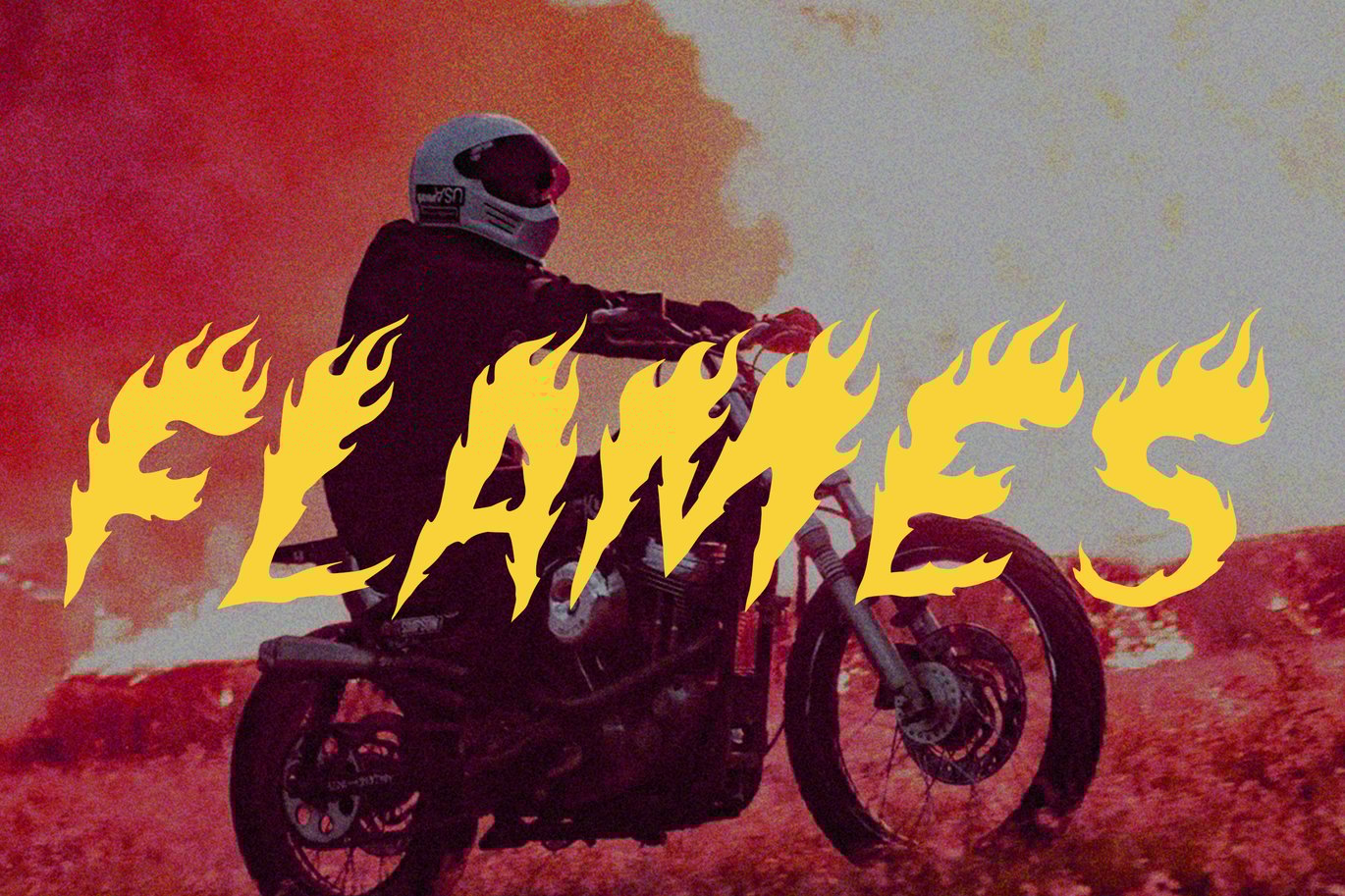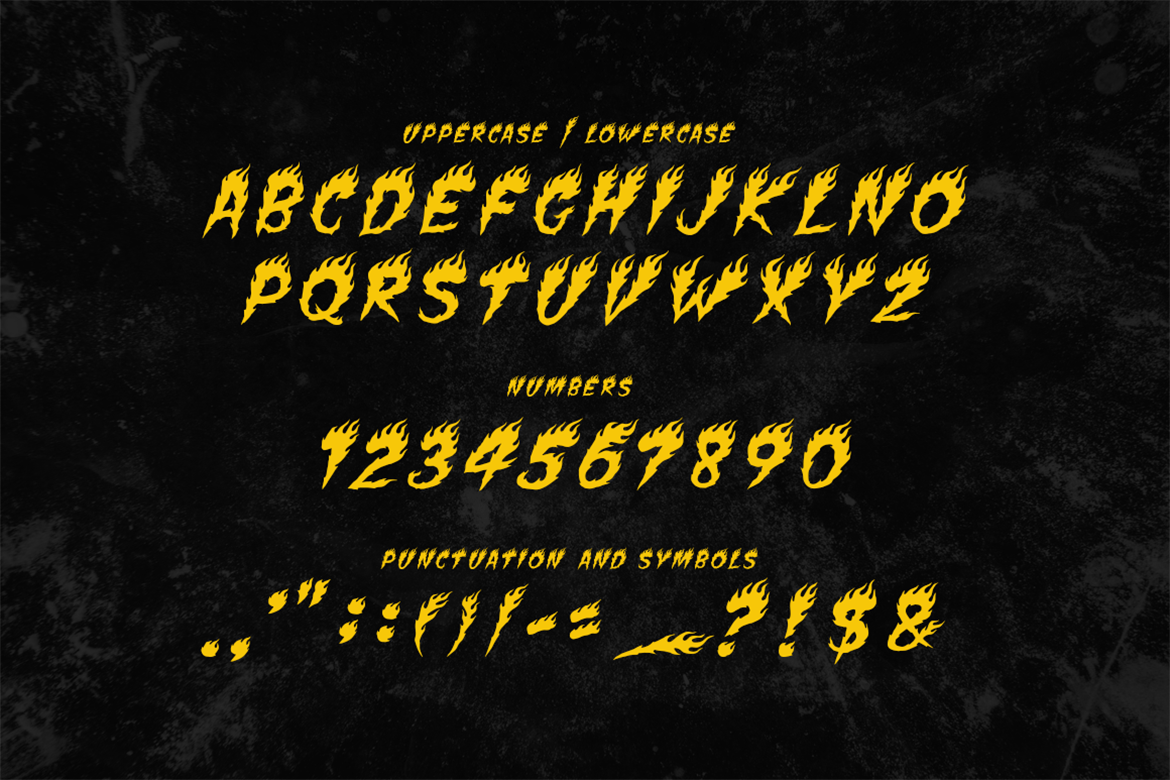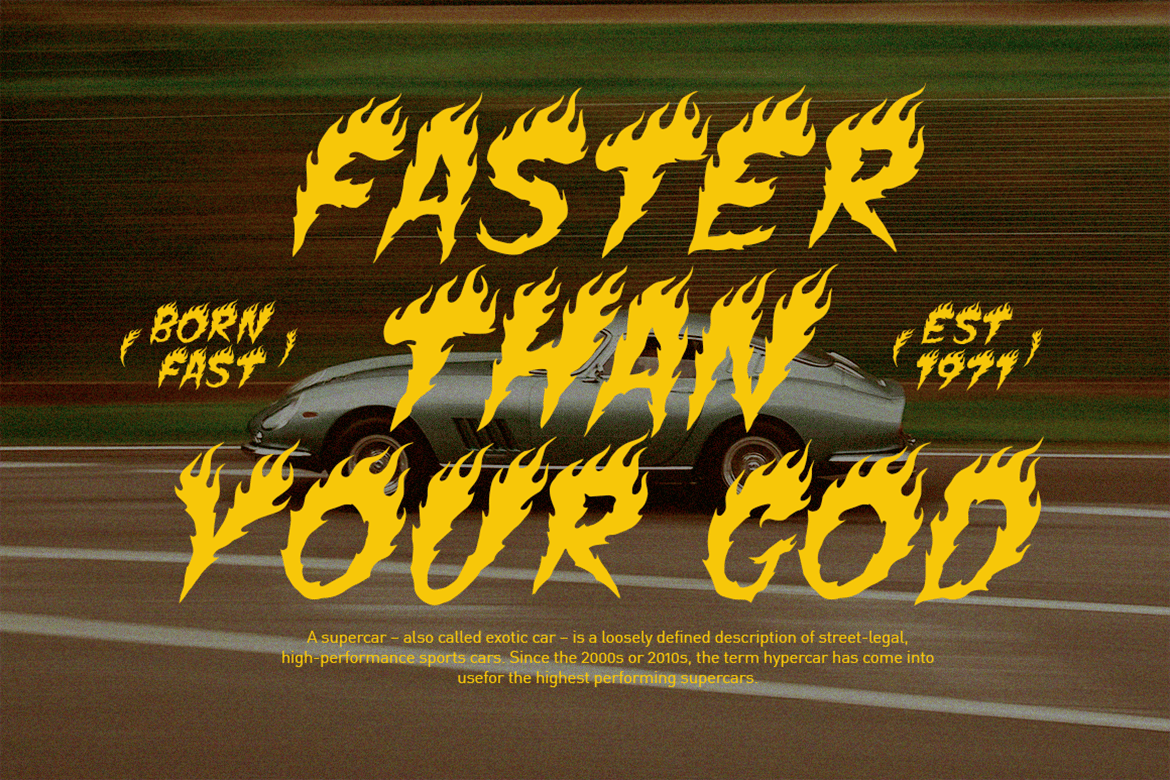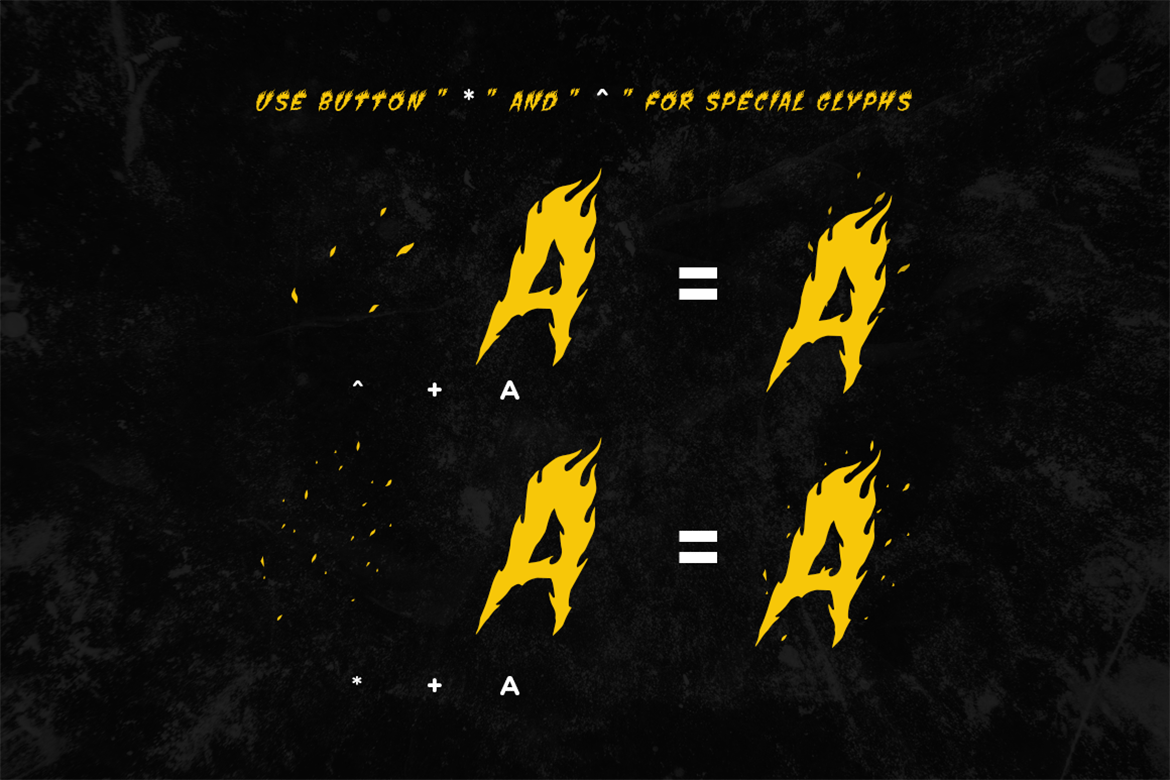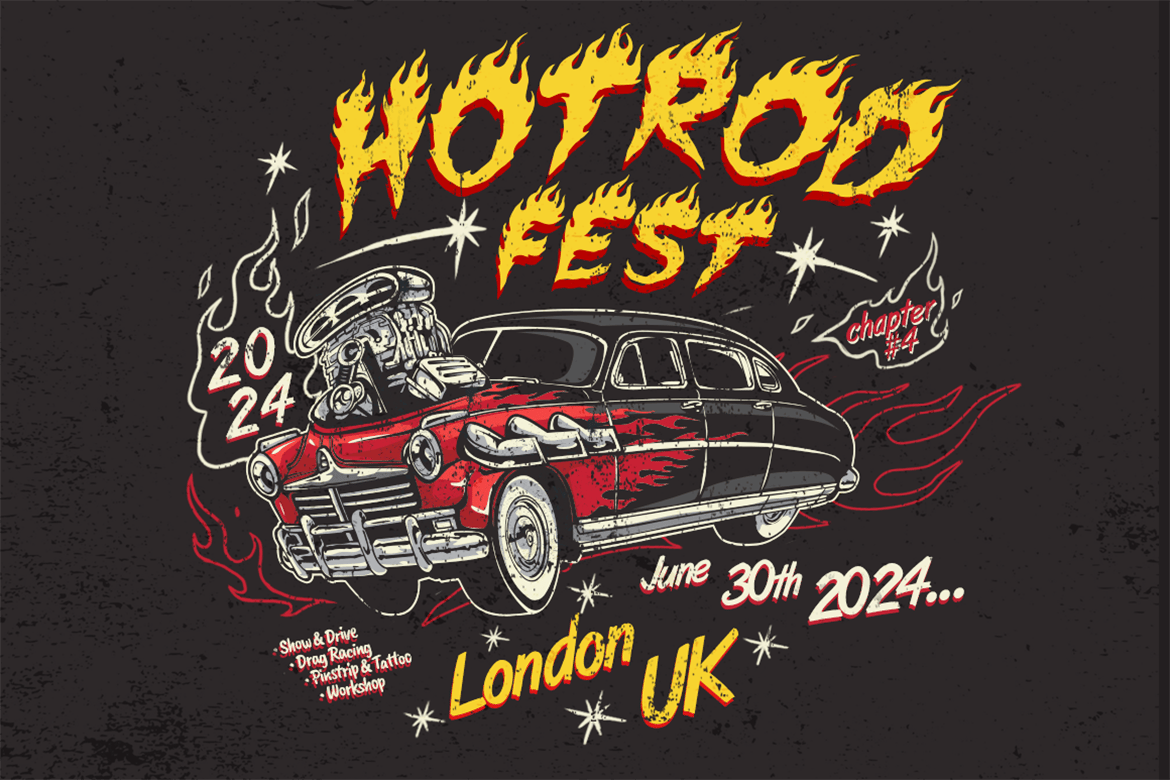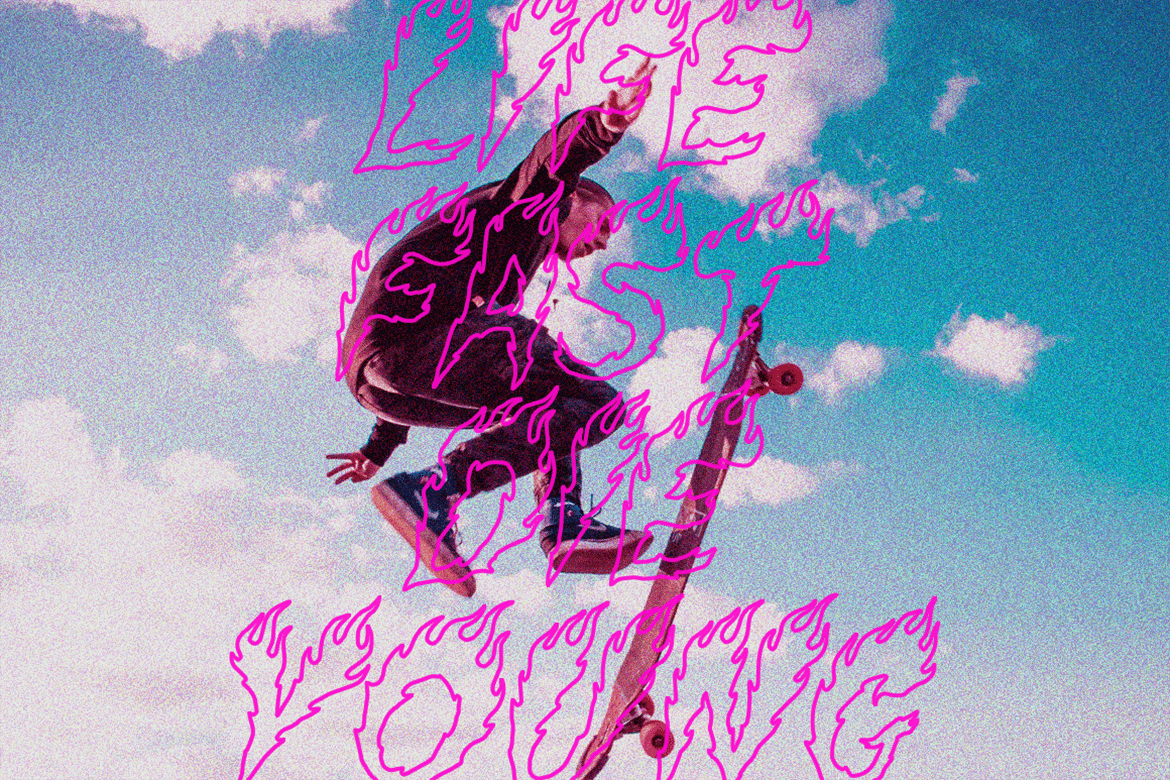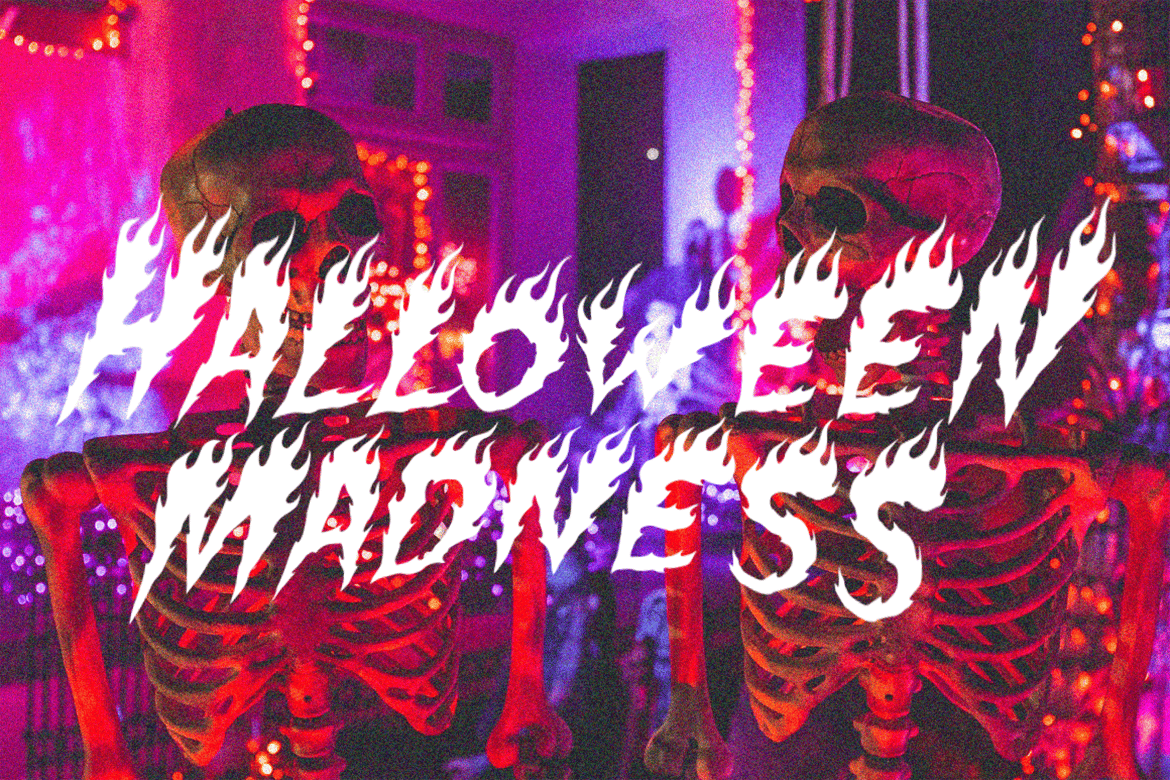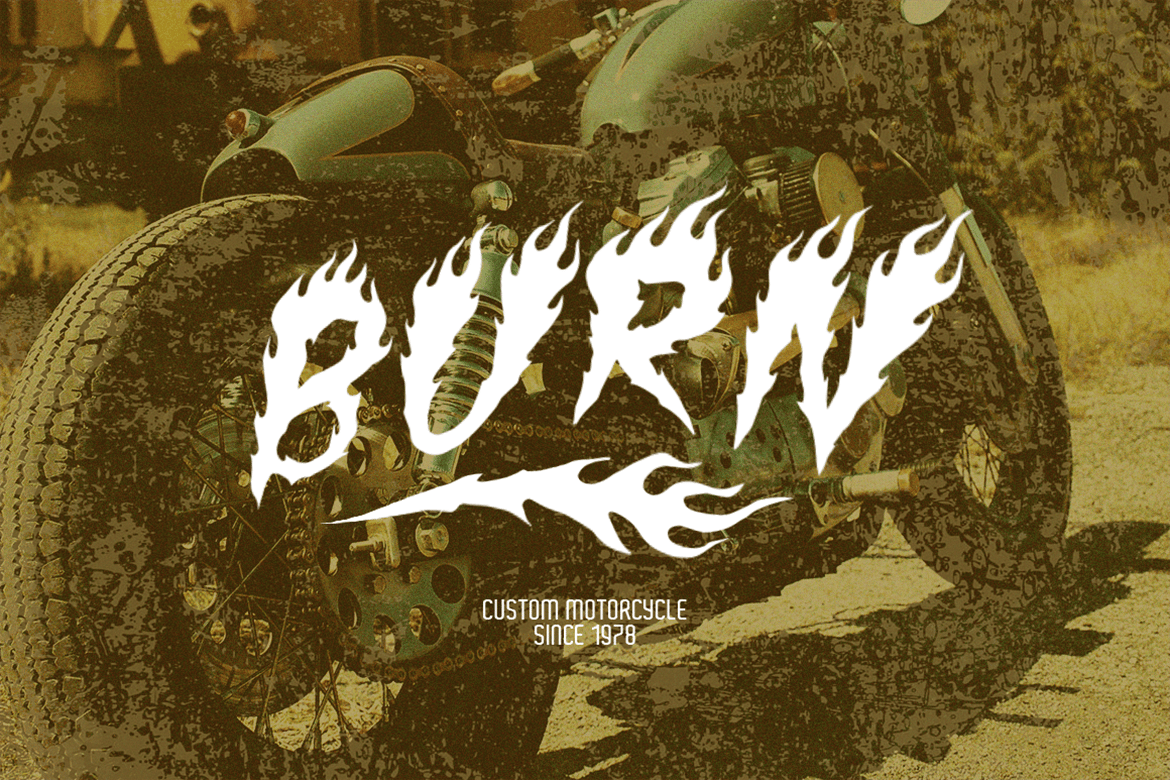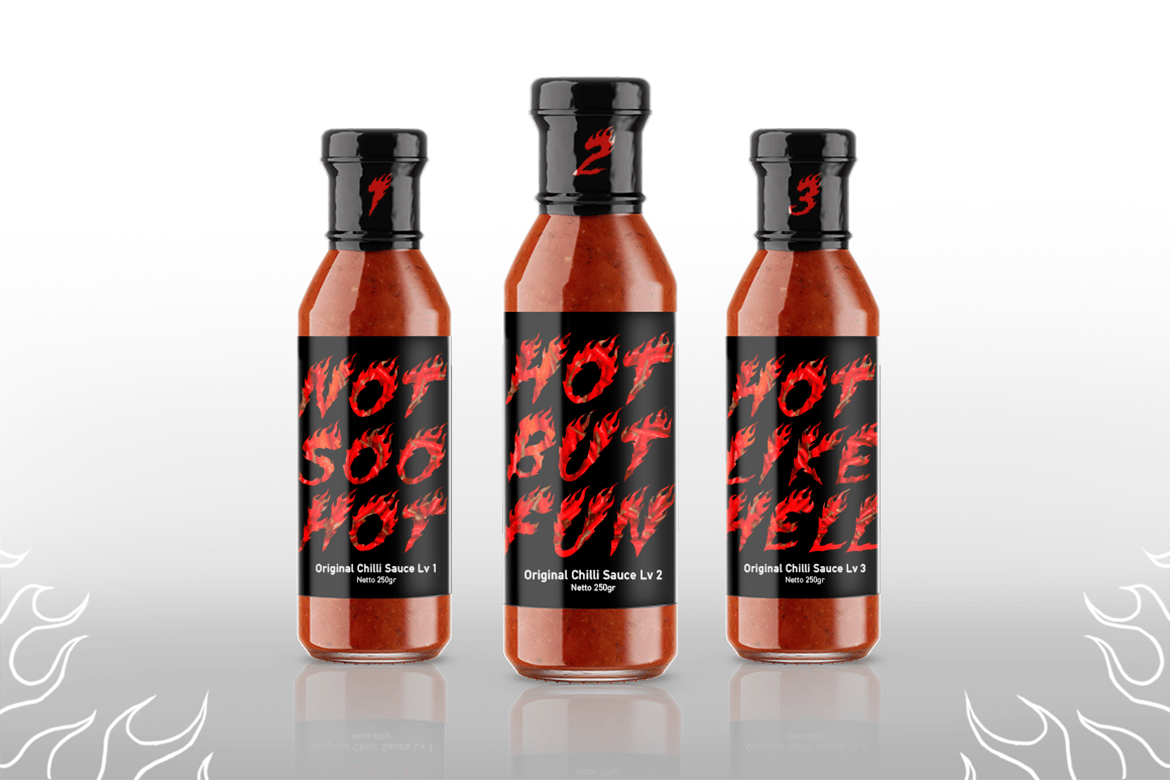
Fire Font | Flames font
Flames specially handcrafted manually and digitalized with Wacom and photoshop. The detail of the fire shape is different each other because each letter crafted manually, make it very natural and rough in the same time.
Perfect for automotive, horror and your rough style design. I create special letter ” ^ ” and ” * ” to make the fonts more life, check it out on the sample.